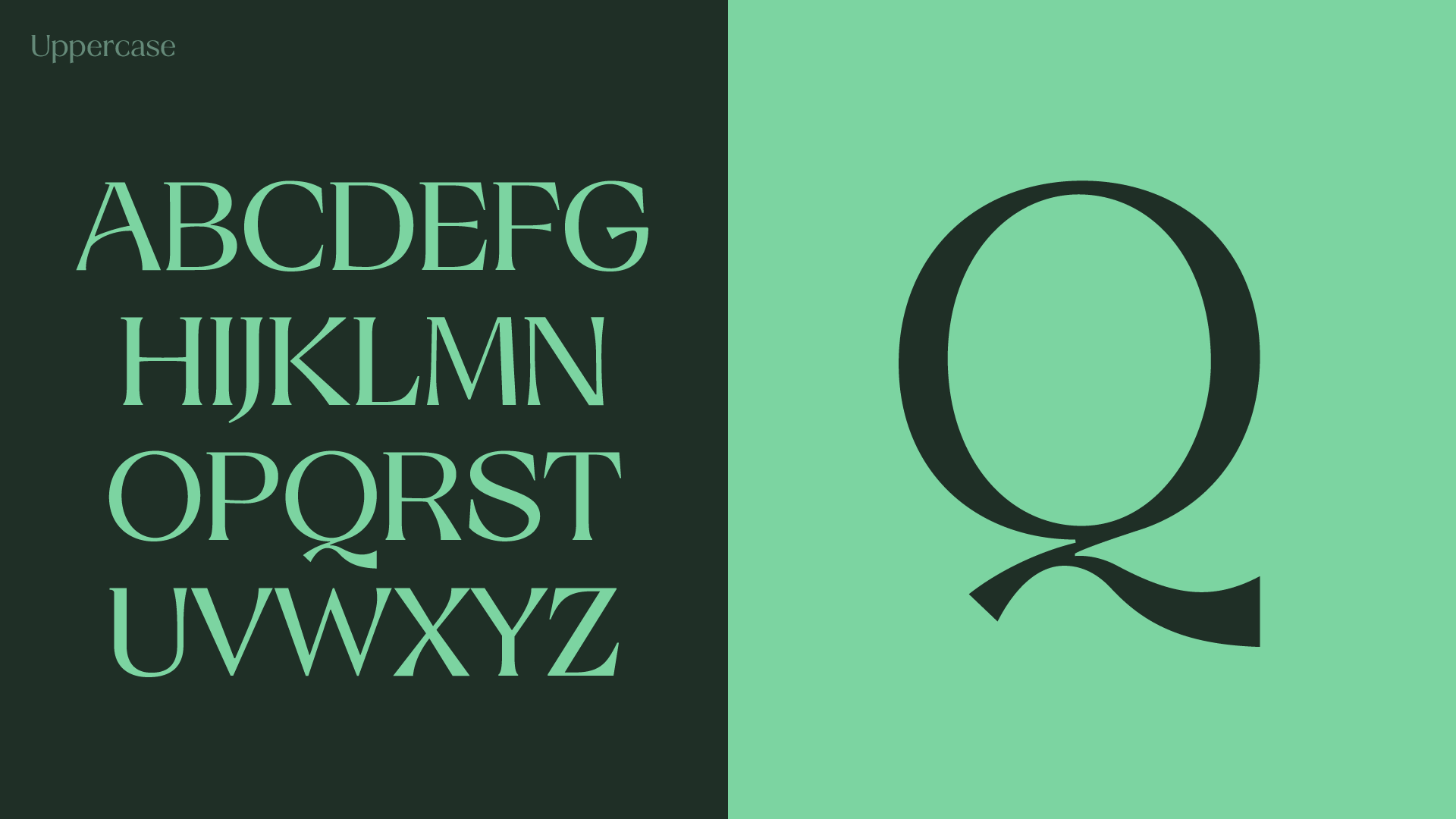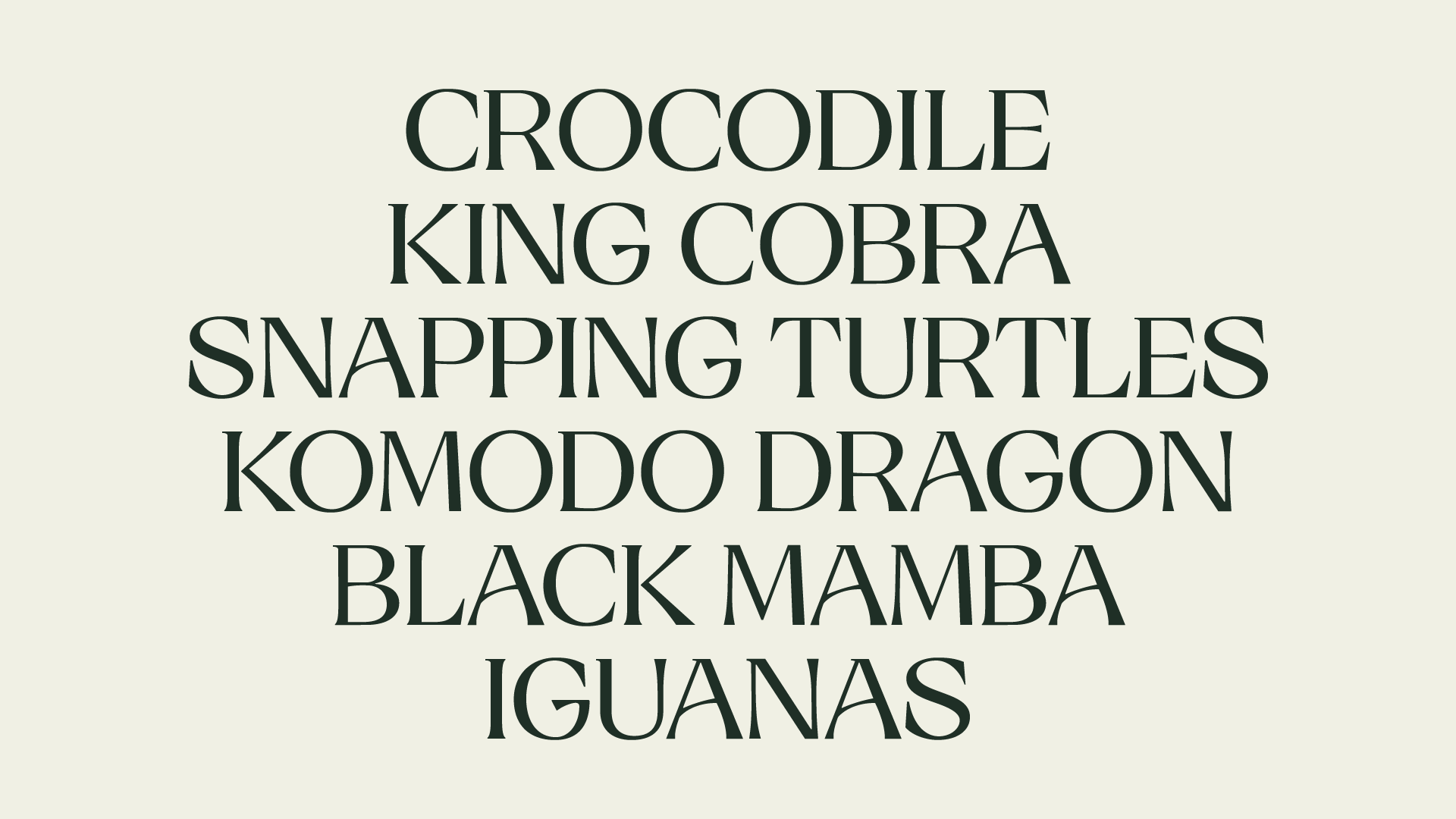
The reptile typeface project started with a question. ‘if a typeface is an element that determines the tone of visual communication, can it express something, other than human voice?’
I thought it would be interesting to get an inspiration from nature and express through letterform. The reptile was one of the topics I considered. I tried to capture the physical characteristics of snakes, lizards, and alligators and applied them as design motifs.
The following is the result of my experiment.